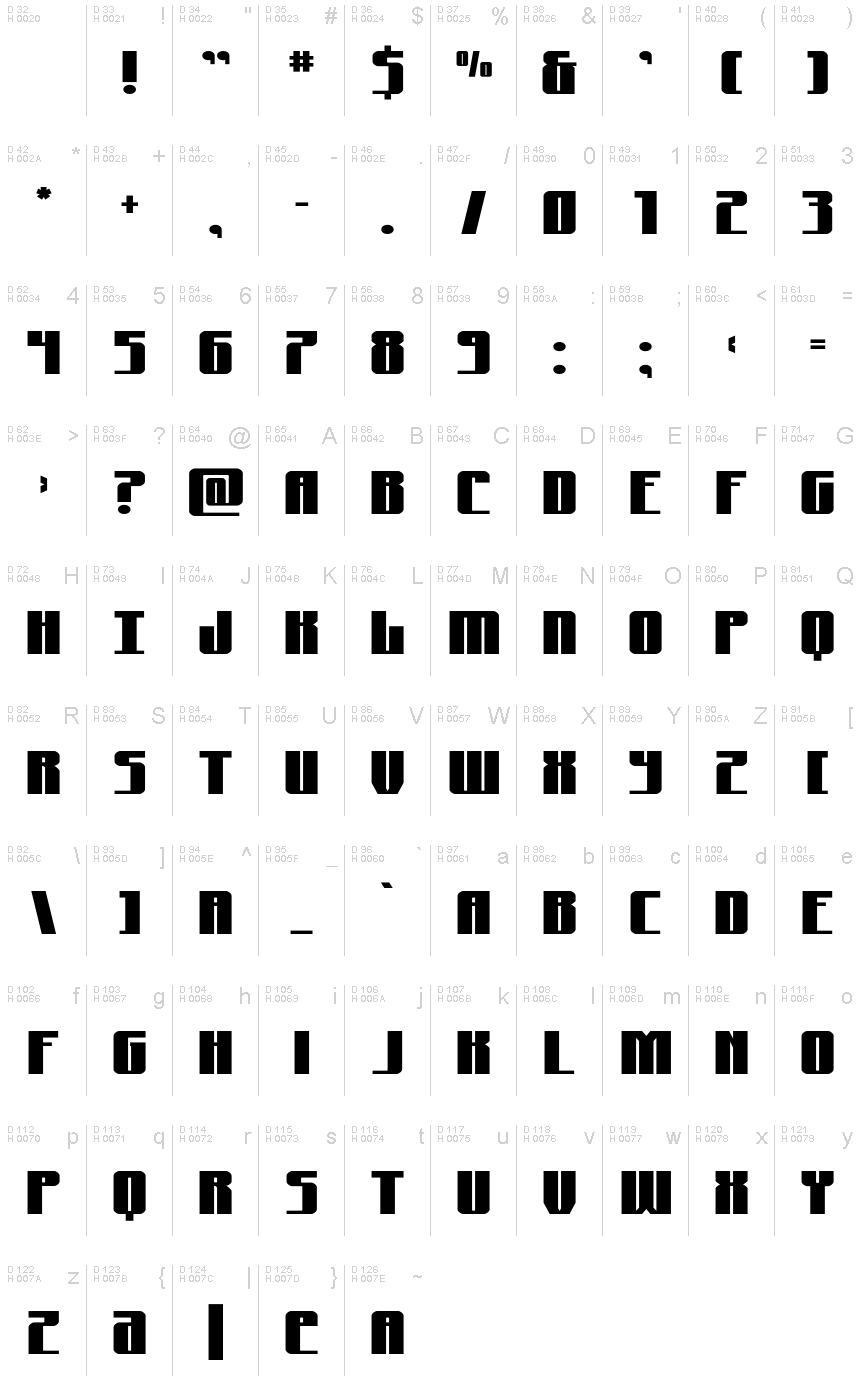
Xeno-Seeker Expanded
Xeno-Seeker Expanded font was designed by Iconian Fonts. This futuristic, techno-themed font drew inspiration from the video game font industry and featured geometric letterforms along with cutouts in its design. The digital display and sci-fi eras inspired this boldly constructed uppercase-only typeface family. With its subtle styles and distinctive structure, Xeno-Seeker Expanded font would be perfect for animated logos plus adventure-related headlines too.
Xeno-Seeker Expanded font is well-suited for crafting sleek technology-driven graphics ranging from film posters down to captivating visual identities even transportation based designs added into the mix! Whether constructing unconventional advertising slogans or striking airport signage options, Xeno-Seeker Expanded could wonderfully meet these specific project requirements effectively!